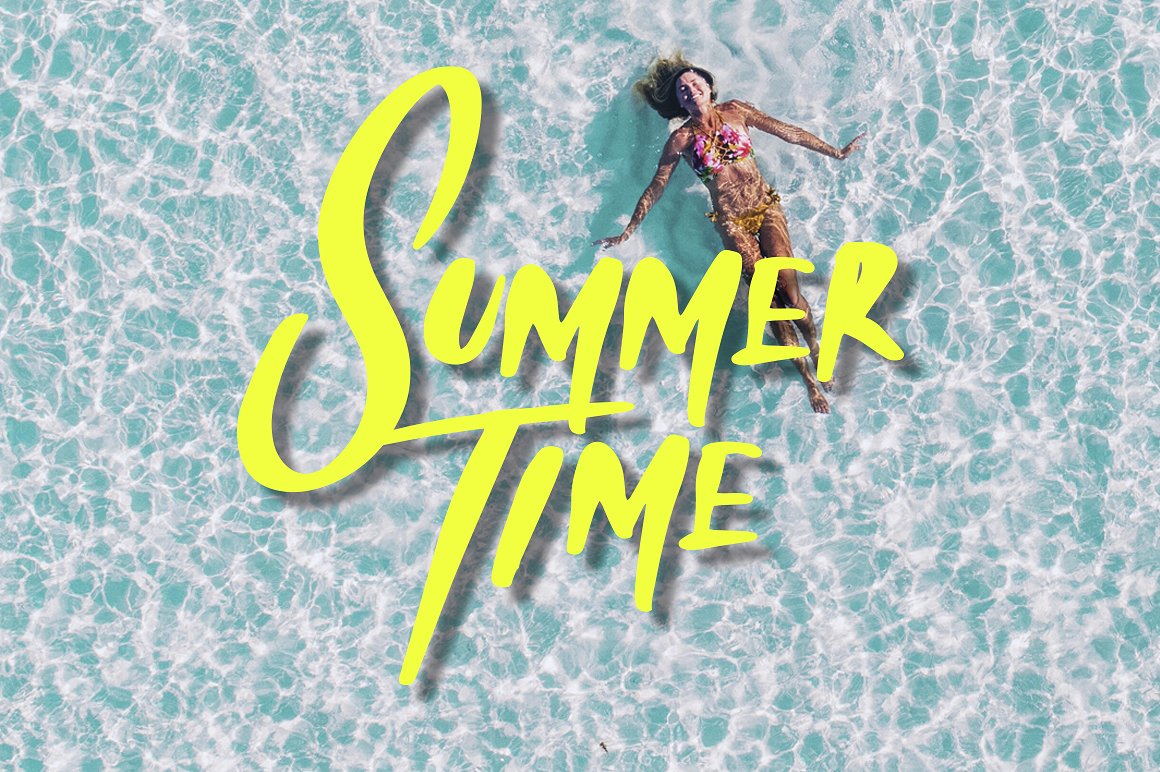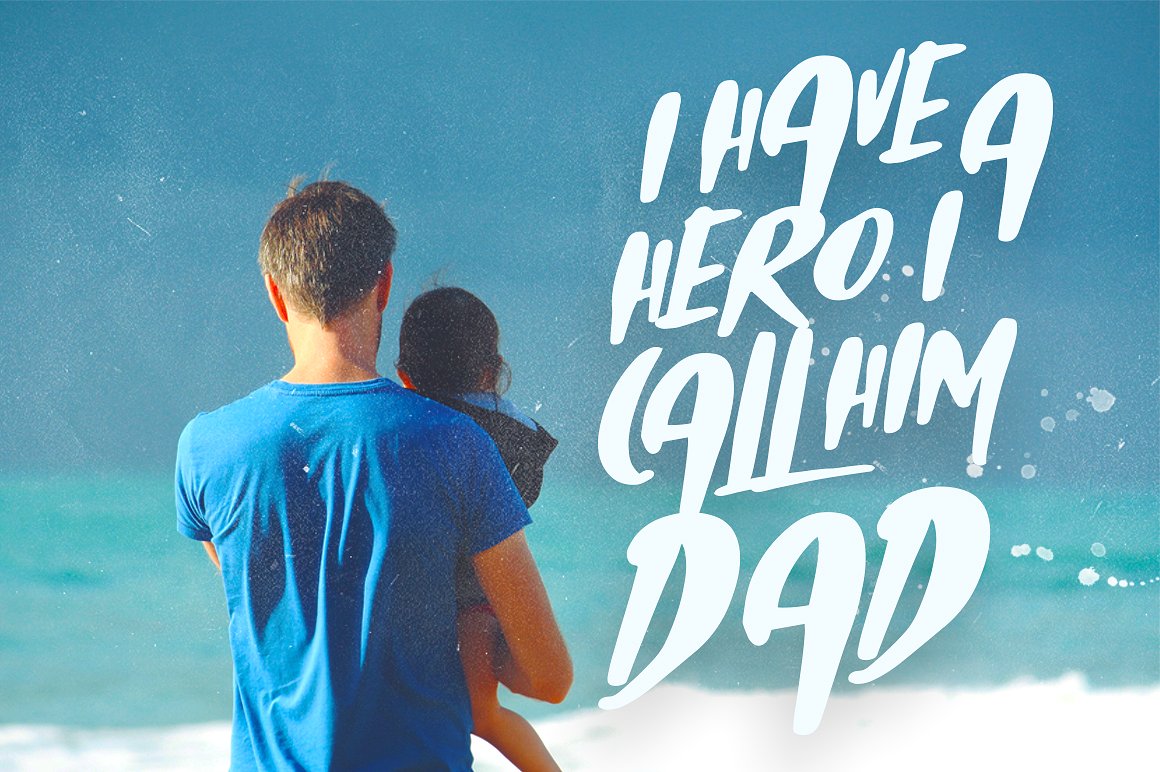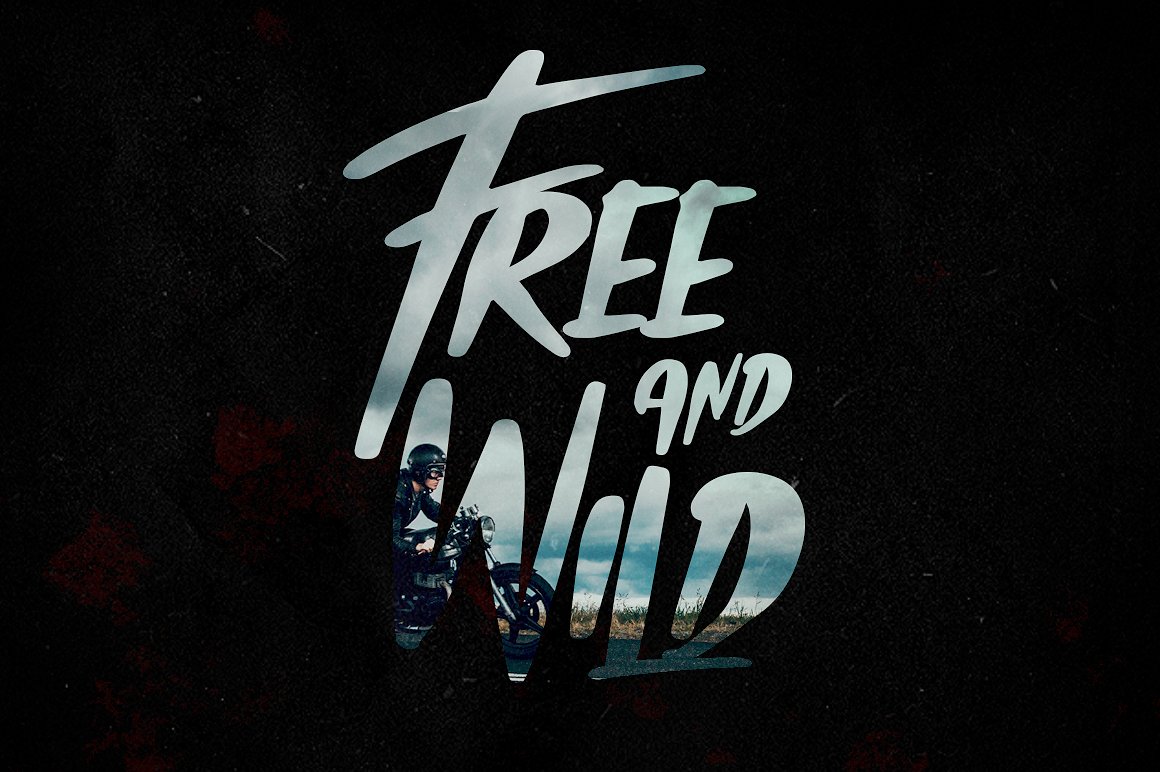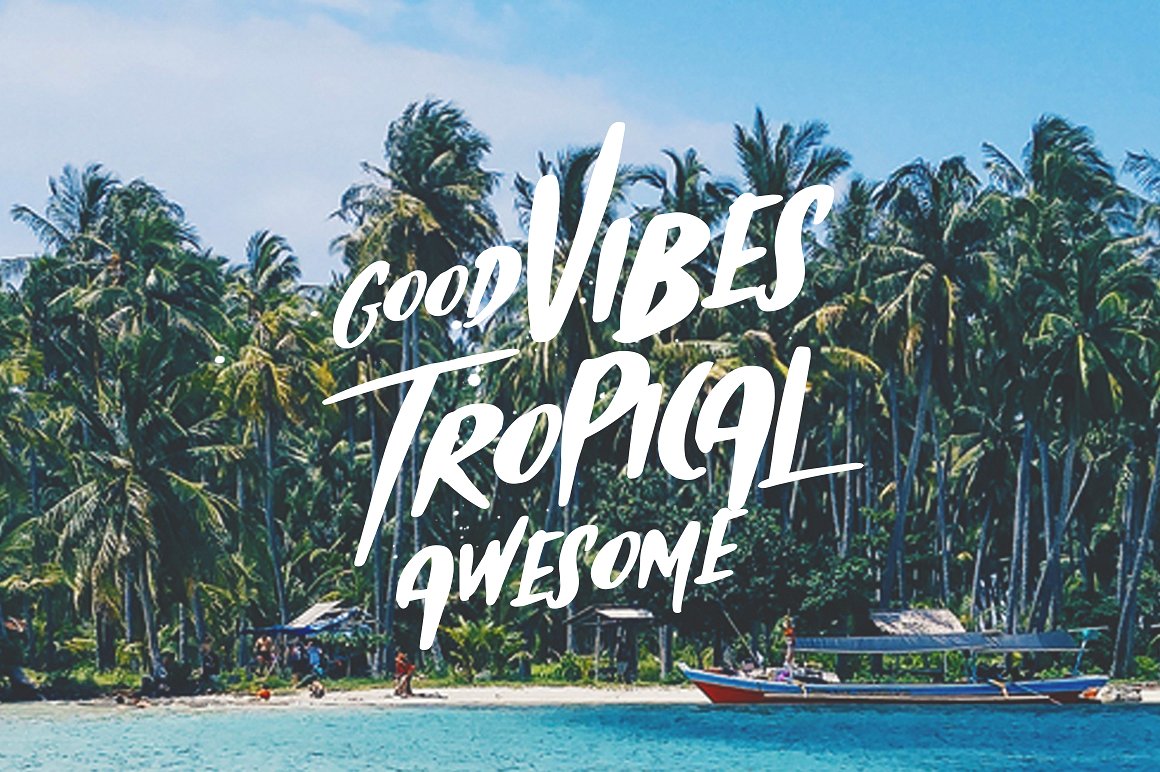
Introduction to Majestic Font
As a designer, there’s nothing quite like the thrill of bringing a creative project to life. You’ve poured your heart and soul into every detail, from the color palette to the typography. But sometimes, no matter how hard you try, your design just needs that extra something to make it truly pop. That’s where the Majestic Font comes in – a stunning hand-painted font that will transport your designs to a world of elegance and sophistication.
Imagine being able to add a personal touch to your designs with just a few clicks. With the Majestic Font, you can do just that. This beautiful, high-quality font is the perfect design resource for anyone looking to elevate their creative project. Whether you’re working on a summer-themed campaign or a wedding invitation, the Majestic Font is sure to add a touch of magic to your work.
Key Features of Majestic Font
- High-quality design resource ideal for creative projects, including logos, brochures, and business cards.
- Unique, elegant design with a transparent background, allowing for seamless integration into any design.
- Perfect for designers seeking a sophisticated and refined look for their creative project, including web design, graphic design, and more.
Honest Review: Majestic Font
I’ve had the pleasure of working with the Majestic Font on a few of my creative projects, and I must say, it’s been a game-changer. This design resource is perfect for anyone looking to add a touch of elegance to their work.
- High-quality typography: The Majestic Font is incredibly detailed and has a unique flair that sets it apart from other fonts.
- Transparent background: This allows for seamless integration into any design, making it easy to overlay on images or other elements.
- Limited character set: While the Majestic Font is available in multiple weights, the character set is somewhat limited, which may not be ideal for lengthy blocks of text.
- No bold or italic versions: If you’re looking for a font that can handle bold or italic text, you may need to look elsewhere.
Overall, I’m thoroughly impressed with the Majestic Font. It’s a great addition to any designer’s toolkit and is sure to elevate your creative projects to the next level.
Majestic Font
The Majestic Font is a high-quality design resource that can elevate your creative project to new heights. With its unique and elegant style, it’s perfect for making a statement in your design work.
The Majestic Font is perfect for a variety of projects, including:
- Social media graphics and presentations
- Editorial and publishing projects